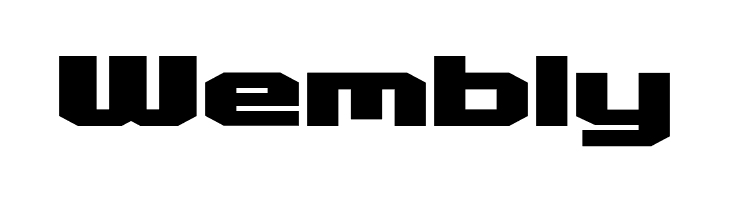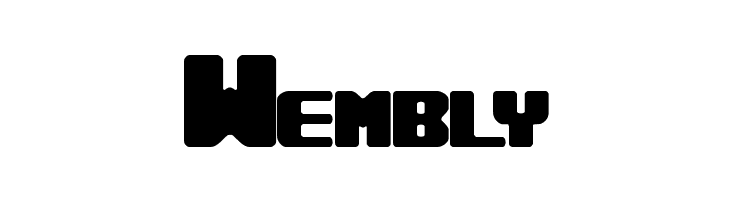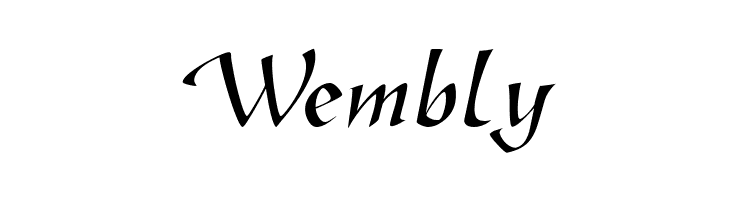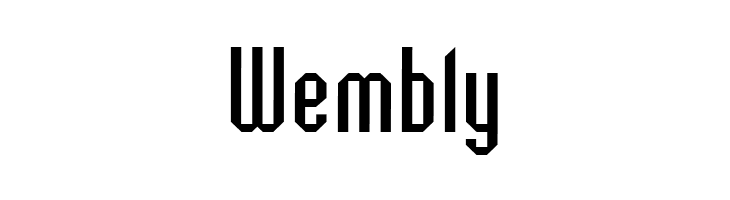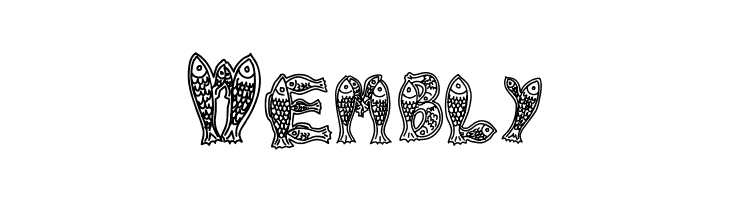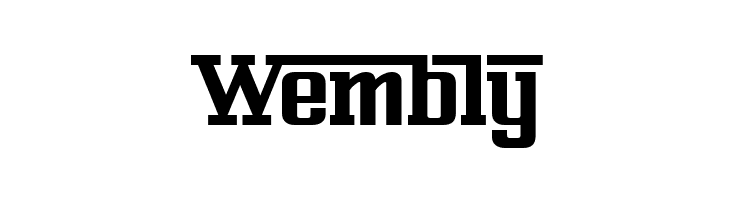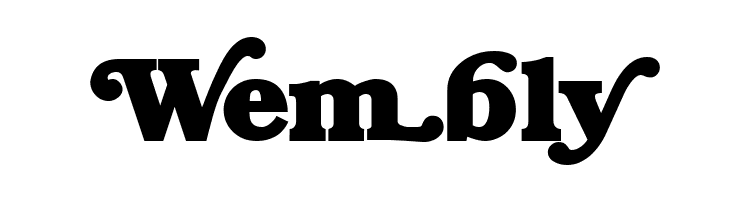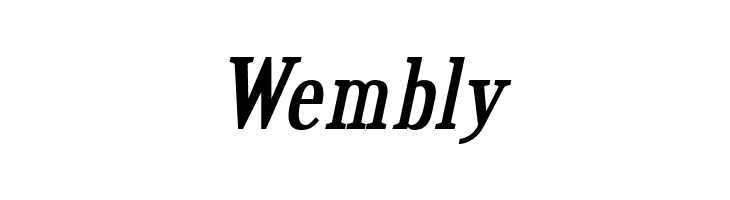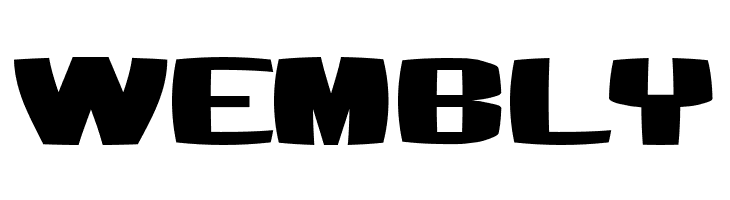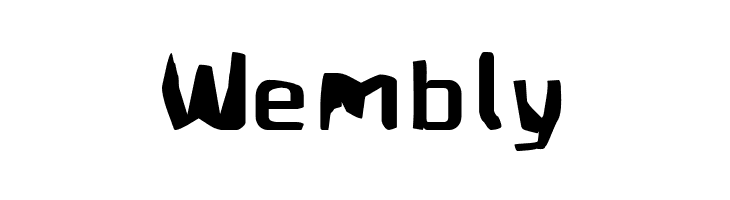
A bold, geometric font with a modern, industrial aesthetic.
A bold, blocky font with rounded edges and uniform thickness.
A playful, bold font with rabbit ear-like ascenders and rounded characters.
A bold, geometric font with strong, consistent strokes and an industrial feel.
A bold, blocky font with high contrast and a modern, impactful style.
A whimsical, hand-drawn font with irregular, wavy lines and playful curves.
A bold, geometric font with a modern and industrial feel.
A bold, graffiti-inspired font with sharp, angular edges and dynamic strokes.
A bold, playful font with rounded, thick strokes and a friendly appearance.
A bold, distressed font with a rugged, edgy appearance.
A bold, 3D-effect font with sharp angles and a dynamic style.
A bold, decorative font with outlined, three-dimensional characters.
A bold geometric font with Art Deco influences, featuring tall, narrow letters and consistent stroke widths.